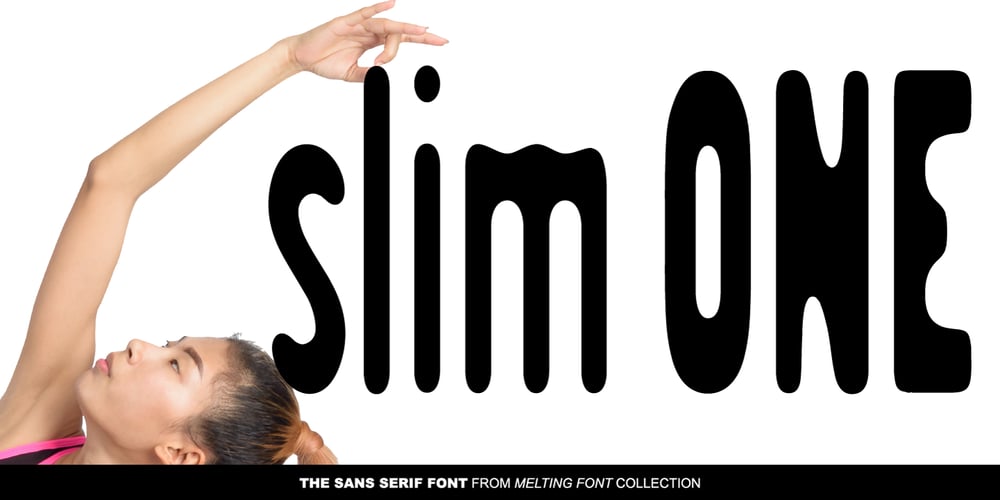
GS Slim One Font Family was designed by Galina Bleikh, Lilia Chak and published by GalaStudio. GS Slim One contains 1 styles and family package options. We, GalaStudio (Lilia & Galina) represent the SlimOne Normal font from our MELTING FONTS collection. On typing in Google the words “to slim” you can see immediately that the most in demand on the subject is: “to slim in one month”, “to slim tips”, “to slim – what should I do”. We are obsessed with the idea to lose weight. It means now to become more healthy, more fashionable, self-confident and successful. Font as an important element of environmental design reflects contemporary reality. We want to respond to this challenge in our font design. Thus, in our GalaStudio the MELTING FONTS series was born. The fonts of the SlimOne family have a concept of disappearing graphic elements. The letters of these fonts look like melting, dissolving into the space. INCLUDED: GS_SlimOne_Normal.otf GS_SlimOne_Normal.ttf Numbers, additional glyphs & basic punctuation are included. PERFECT FOR: using in books titles, textbooks, notebooks, different brochures and advertising, especially for kids, home-ware design, packaging design; magazines, posters and flyers titles; logos design, books design, fashion design, slogans etc. ๐ Multilingual support included for the languages based on Latin alphabet.